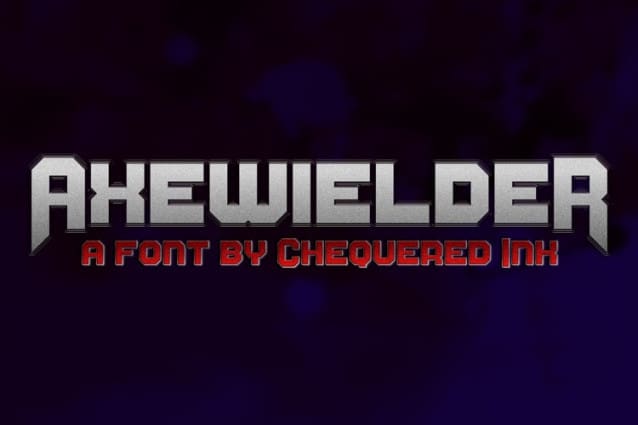
AxewieldeR Font
AxewieldeR Font, this bundle features strong, confident and powerful typefaces designed to work great with sports logos, club branding, apparel applications, labels and more.